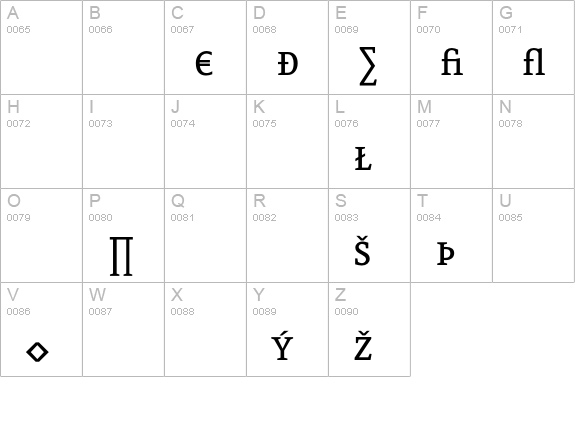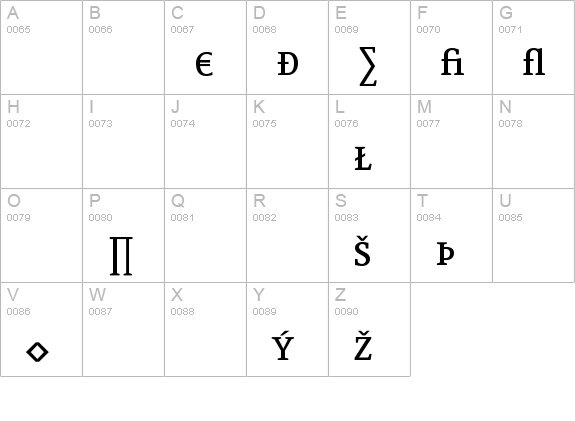
Eureka Medium Exp is a balanced, medium-weight variant in the Eureka typeface family \xE2\x80\x94 well suited to sub-headlines, navigation, and balanced editorial work.
Eureka Medium Exp font is a versatile typeface that strikes the perfect balance between modernity and classic elegance. Its medium weight and expanded design make it ideal for a wide range of design projects, from editorial layouts to branding and packaging designs. This font features clean, precise lines that exude a sense of sophistication and professionalism. The slightly condensed letterforms ensure excellent readability, making it a great choice for both display and body text. Eureka Medium Exp font is freely available to download at FontsMarket.com, allowing designers and creatives to access this beautiful typeface for their projects without any cost. With its timeless appeal and versatility, Eureka Medium Exp font is sure to elevate any design it is used in.